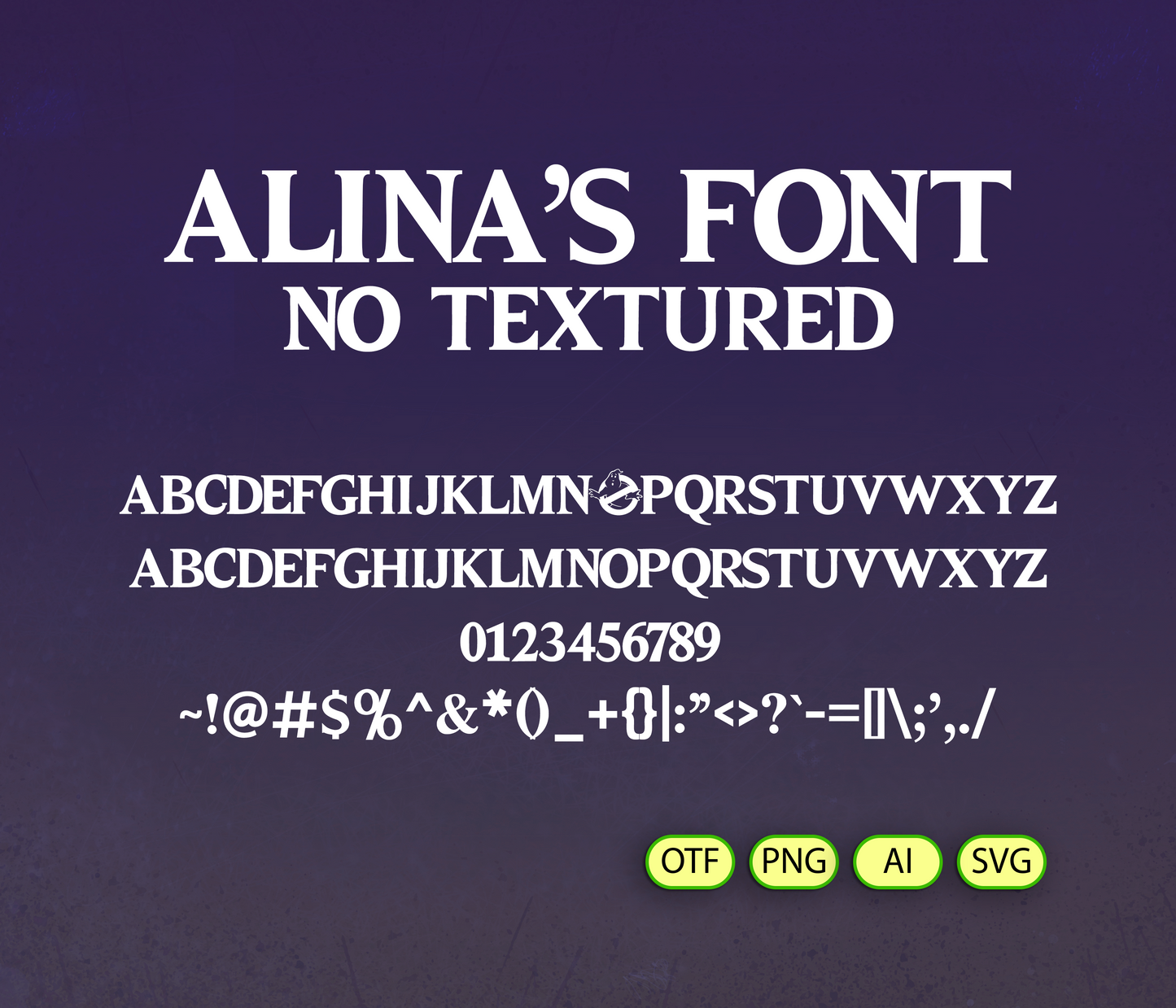
Paranormal Investigators Font
Step into the supernatural world of ghost-hunting with our specially designed font, capturing the essence of beloved paranormal professionals. Perfect for fans, event organizers, and designers, this font brings the quirky, fun-loving spirit of those unforgettable investigators to your projects. Create event invitations, themed merchandise, or digital content with the spooky yet humorous energy of these legendary ghost-catchers.
Our Paranormal Investigators font features playful, energetic characters reflecting the perfect blend of humor and supernatural elements. Ideal for:
Our font pays tribute to the legendary ghost-hunters, empowering your designs with its quirky and supernatural spirit. Whether crafting promotional materials, designing merchandise, or adding a spooky touch to personal projects, this font communicates the beloved essence of these paranormal professionals. Ready to inject some supernatural fun into your creations? This font is your key to spirited, impactful design.